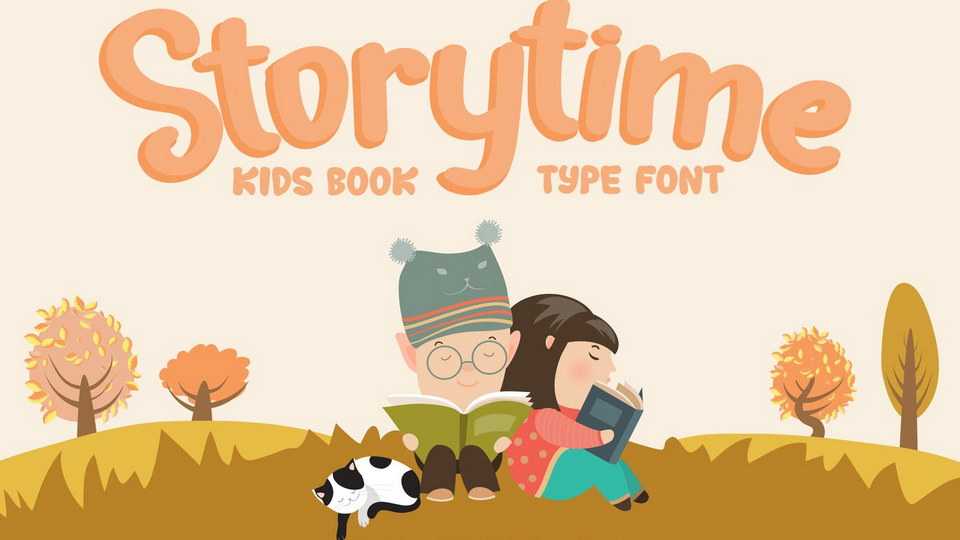
Download Storytime font, a kids book typeface. Storytime brings the children’s handwriting to its own level. The read-ability is well thought, so that will engage kids longer to the story being written.